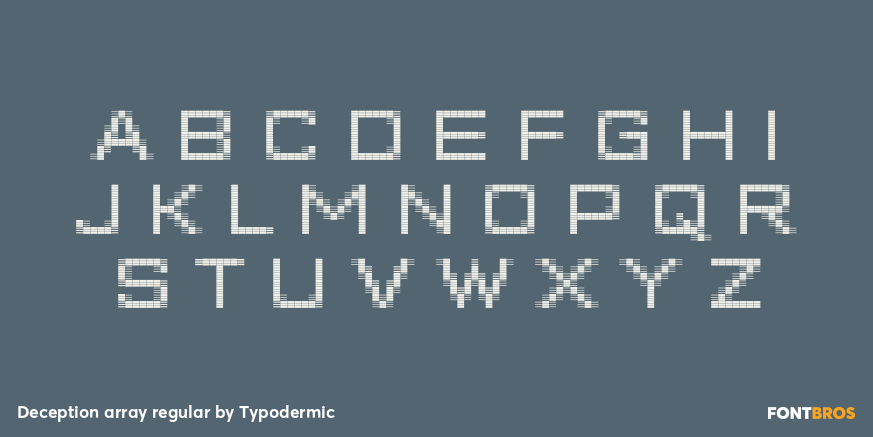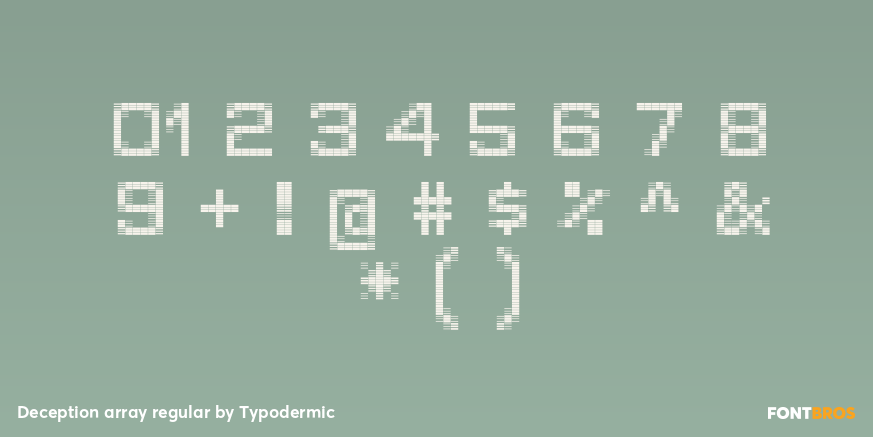
Deception array regular
Deception Array organizes the family’s pixel modules into an ordered field, making each letter feel sampled by an imaging sensor or assembled on a matrix display. It is the clearest Deception treatment for subjects built around structured capture, repeated cells, and measurable visual data rather than outright signal failure.
Use Array for machine-vision branding, satellite-imaging reports, microscopy conferences, sensor launches, LED installations, data-visualization titles, and technical exhibits about how images are acquired. Regular and Bold keep the same modular logic, allowing captions and major headings to share one processed vocabulary.
Deception array regular by Typodermic